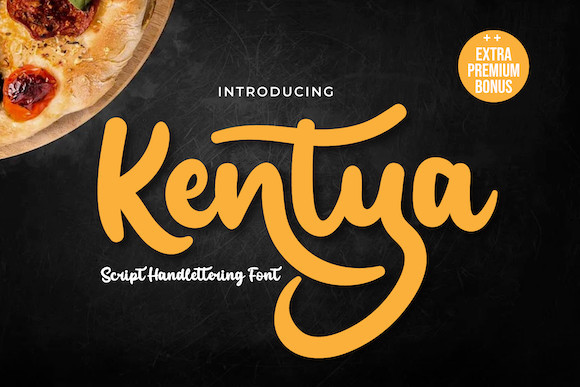
Kentya Script Font
This font is made with elegant calligraphy nuances and there are so many kinds you can combine various kinds of font choices to get the beautiful writing you want, this font is also good for writing your name and trademarks and logos and words, sentences that beautiful of course with the right typography harmony.
This font also offers the beauty of abstract typography harmony for a wide variety of design projects, including natural handwriting in digital form for designs, quote designs, for social media business designs, advertisements, trademarks, promotional banners, posts, posters, signatures, and all. the design requires handwriting or whatever design you want.